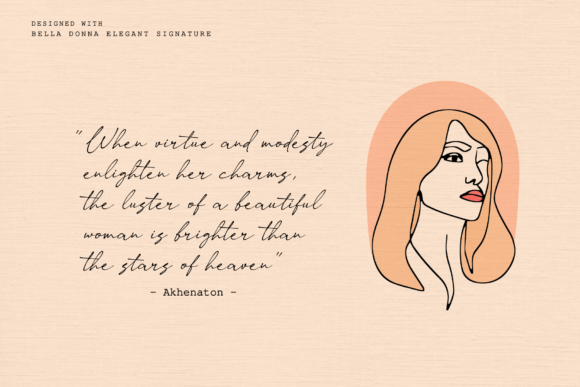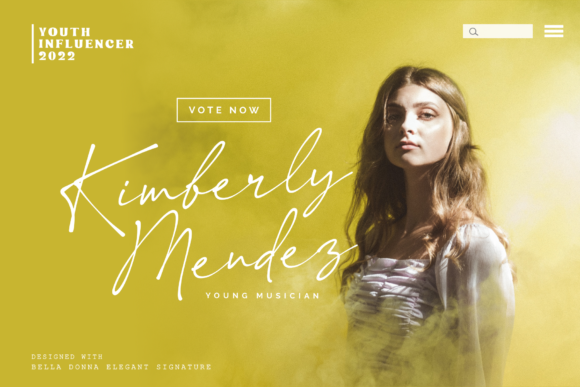
Bella Donna Font
db-ku.com - Script & Handwritten -- Bella Donna is a delicate and slim handwritten font. Its distinct and well balanced letters make this font a masterpiece. This font is PUA encoded which means you can access all of the glyphs and swashes with ease!